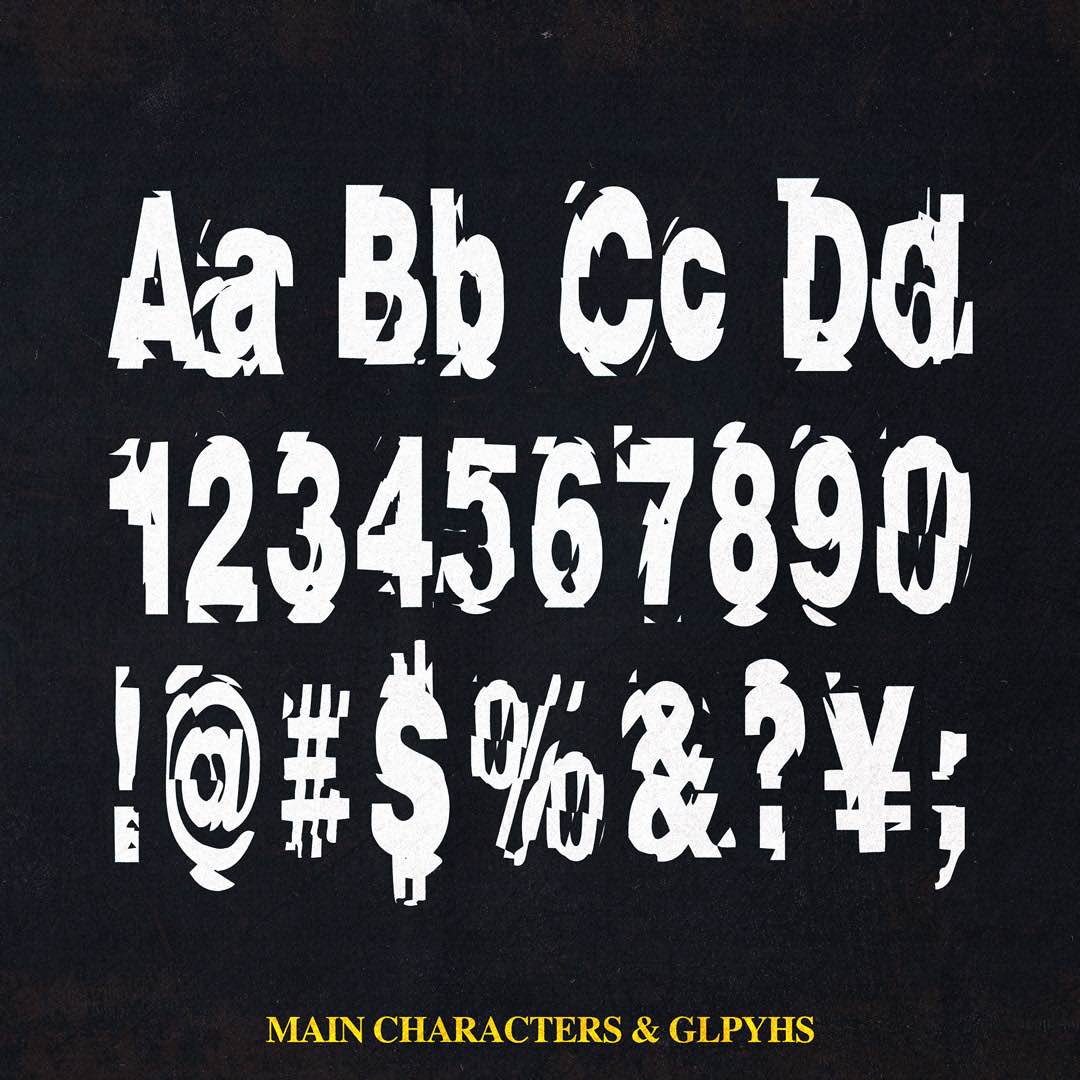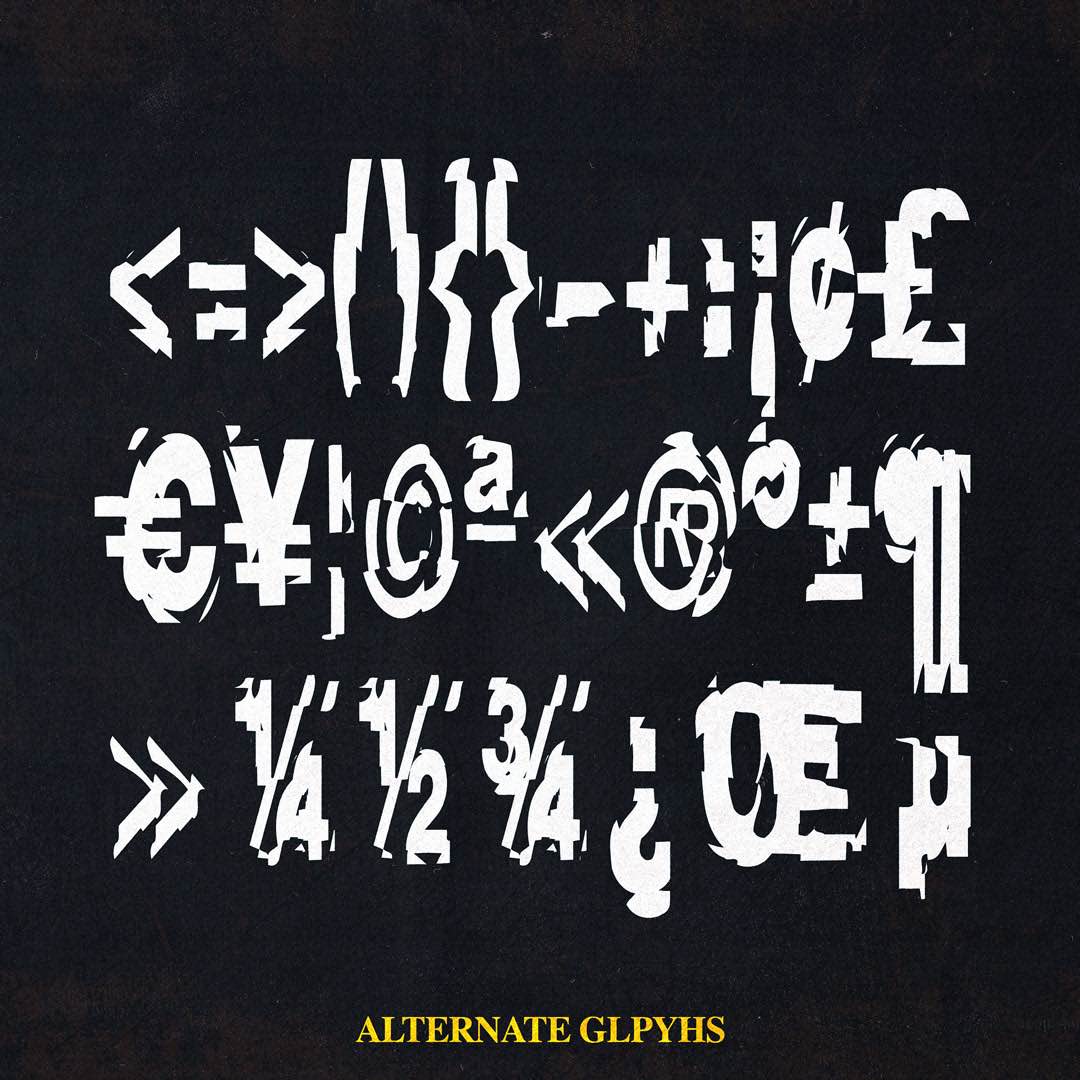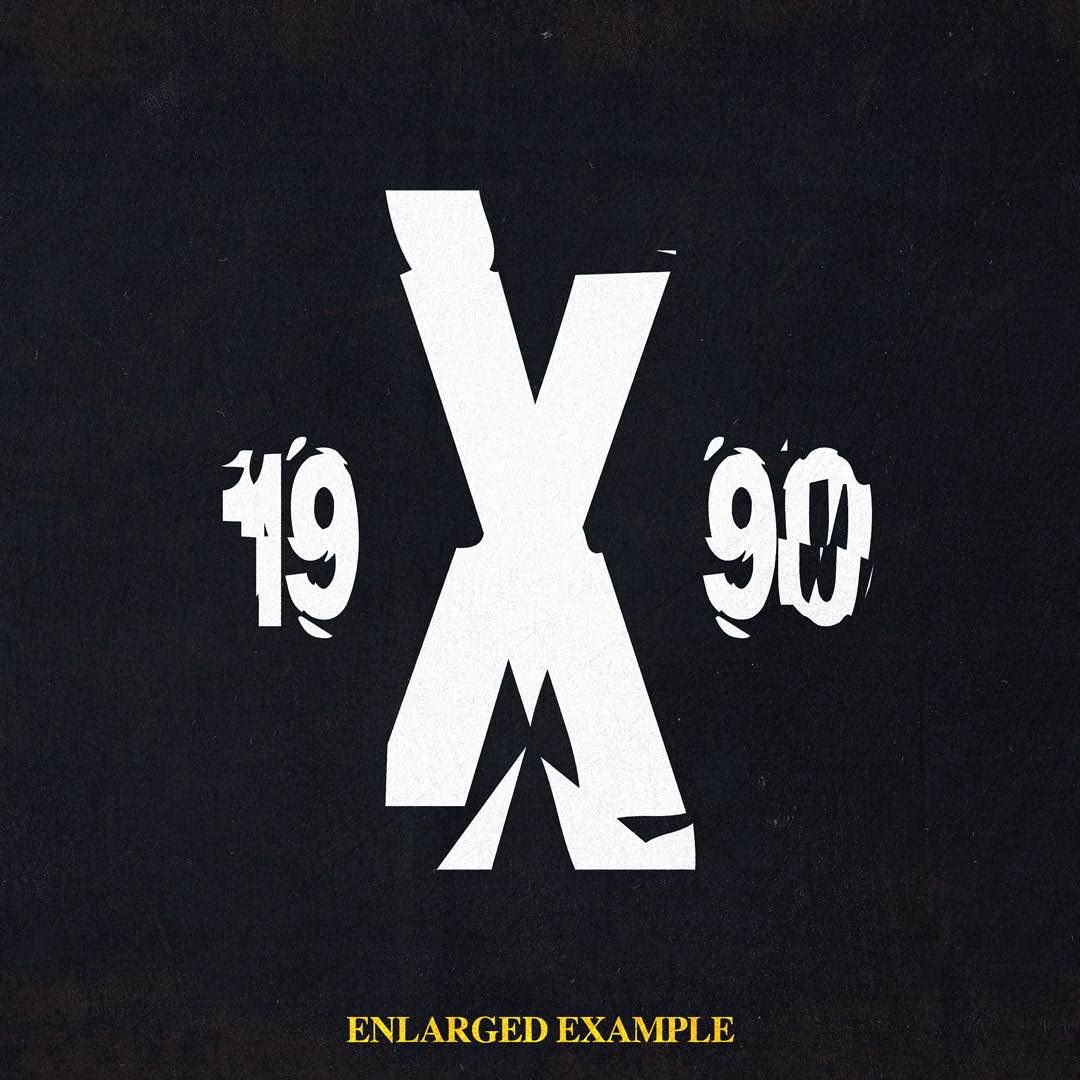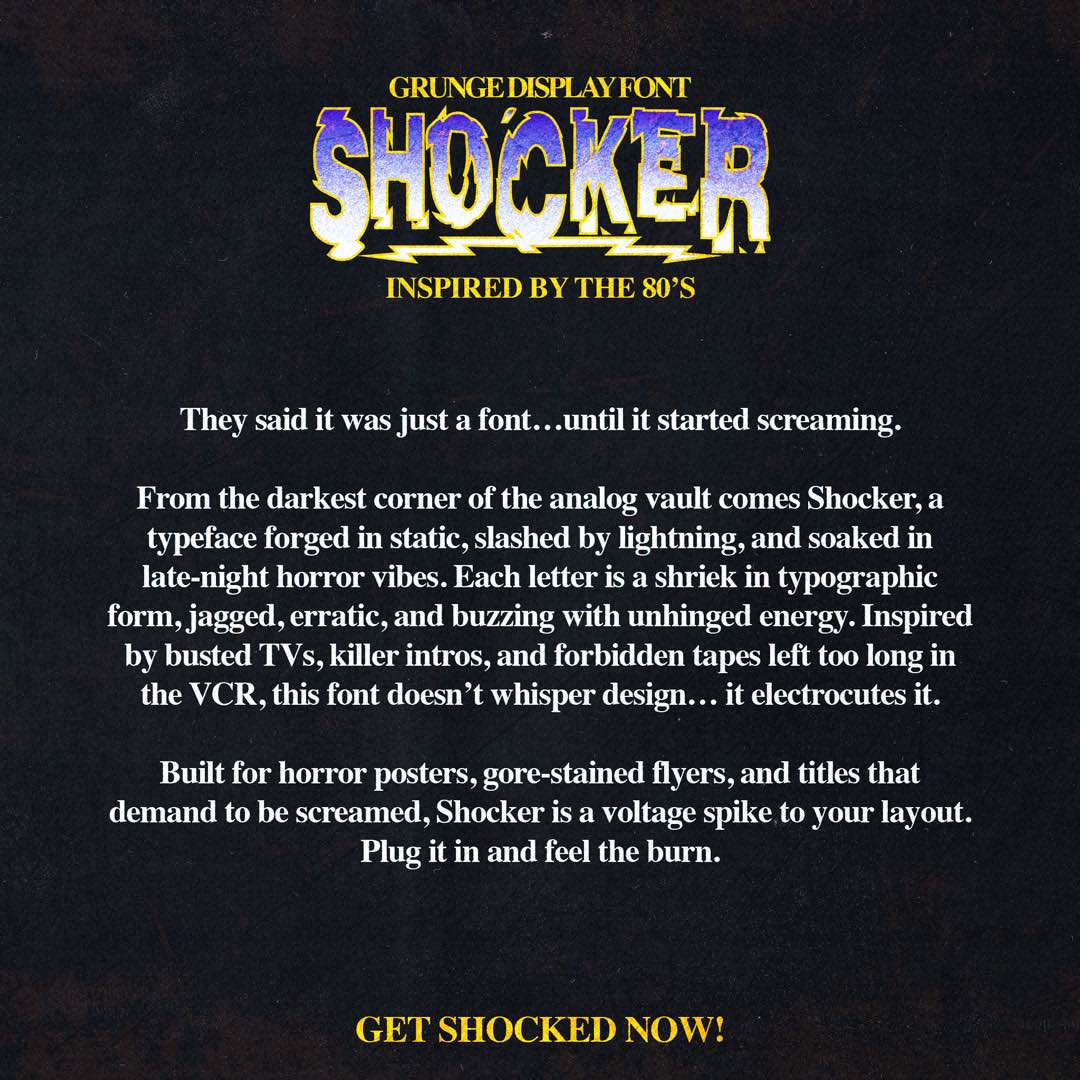
Shocker hits like a jolt to the chest, loud, jagged, and absolutely wired. Designed with raw, electrified strokes and a full-throttle attitude, this display font looks like it was pulled from a lost slasher film and pumped full of VHS static. Whether you’re designing horror posters, haunted house flyers, or titles that need to scream from across the room, Shocker delivers voltage with every letter. Proceed with caution, this type bites.